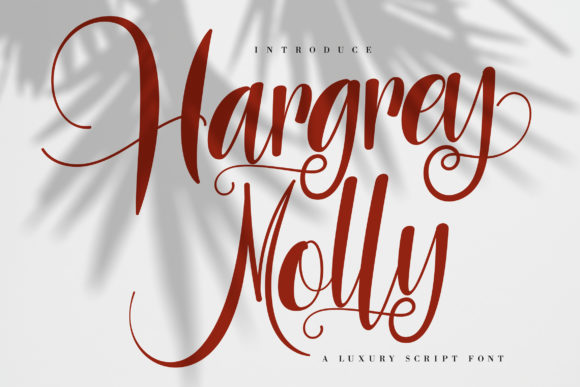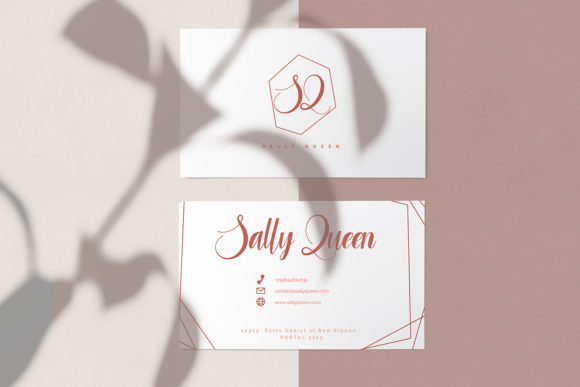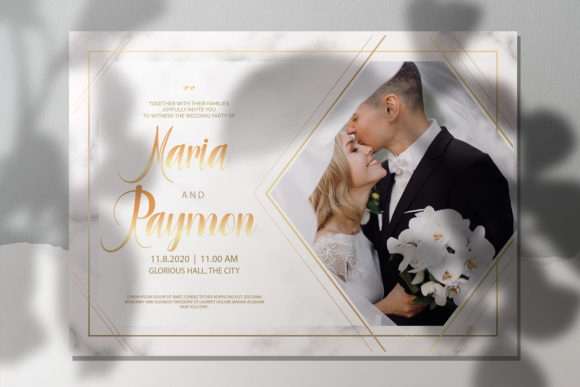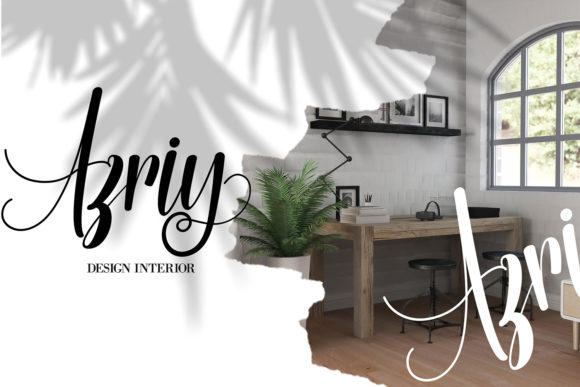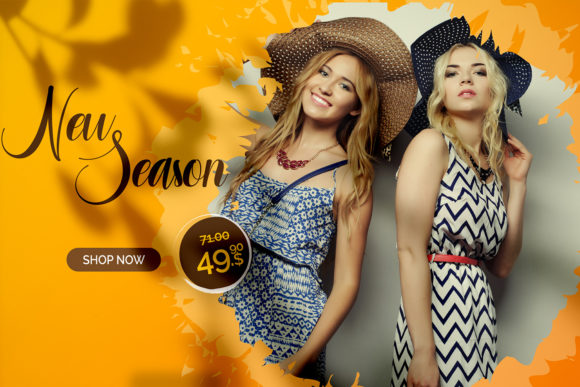
Hargrey Molly Font
About Hargrey Molly Font
Hargrey Molly is a stylish and modern script font with a unique character. Fall in love with its charming style!